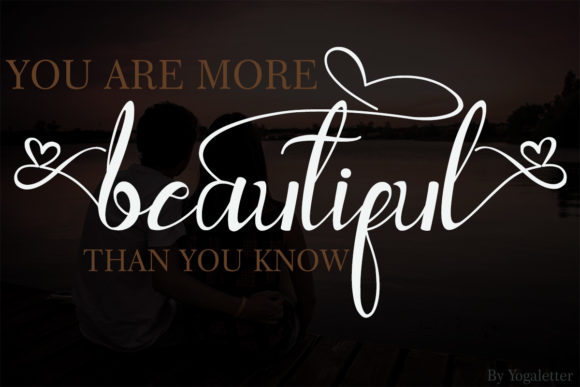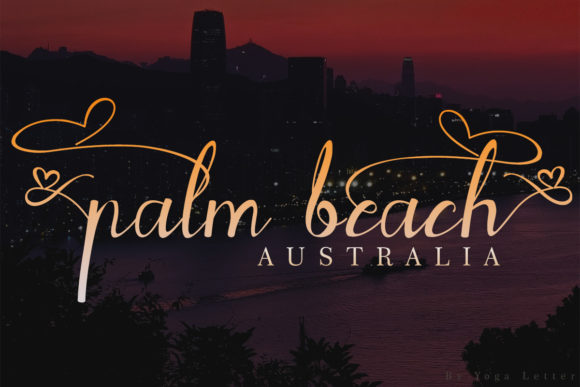
Introducing Agatha Font: The Elegant Calligraphy Font for Your Creative Projects
Are you looking for a beautiful and elegant calligraphy font to add a personal touch to your designs? Look no further than Agatha Font! This stunning font is perfect for a variety of creative projects, including wedding invitations, thank you cards, quotes, greeting cards, logos, business cards, and more. With its varying baseline, smooth lines, gorgeous glyphs, and stunning alternates, Agatha Font is sure to elevate your designs to the next level.
What Makes Agatha Font So Special?
Agatha Font is a true gem in the world of calligraphy fonts. Its elegant and refined design makes it perfect for adding a touch of sophistication to any project. Here are just a few features that make Agatha Font stand out:
• Varying Baseline: Agatha Font features a varying baseline, which gives it a natural and organic feel. This means that the font doesn’t follow a straight line, but instead has a subtle variation in the baseline that adds to its elegance.
• Smooth Lines: The lines in Agatha Font are smooth and flowing, making it perfect for creating beautiful and intricate designs.
• Gorgeous Glyphs: Agatha Font comes with a range of gorgeous glyphs, including swashes, flourishes, and other decorative elements. These glyphs can be used to add a touch of personality to your designs.
• Stunning Alternates: In addition to its standard characters, Agatha Font also comes with a range of stunning alternates. These alternates can be used to add variation and interest to your designs.
Agatha Font is perfect for designers and crafters who want to add a personal touch to their projects. Whether you’re creating wedding invitations, greeting cards, or other paper crafts, Agatha Font is sure to impress. Here are just a few ways you can use Agatha Font:
• Wedding Invitations: Agatha Font is perfect for creating beautiful and elegant wedding invitations. Its refined design and elegant lines make it a great choice for formal weddings.
• Greeting Cards: Agatha Font can be used to create stunning greeting cards for any occasion. Whether you’re making a birthday card, a thank you card, or a holiday card, Agatha Font is sure to add a touch of elegance.
• Paper Crafts: Agatha Font is also great for paper crafters who want to add a personal touch to their projects. Use it to create beautiful journal pages, scrapbook layouts, and more.
• Logos and Business Cards: Agatha Font can also be used to create stunning logos and business cards. Its elegant design makes it perfect for businesses that want to convey a sense of sophistication and refinement.